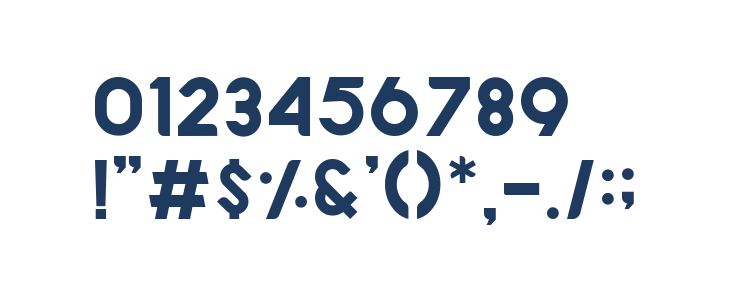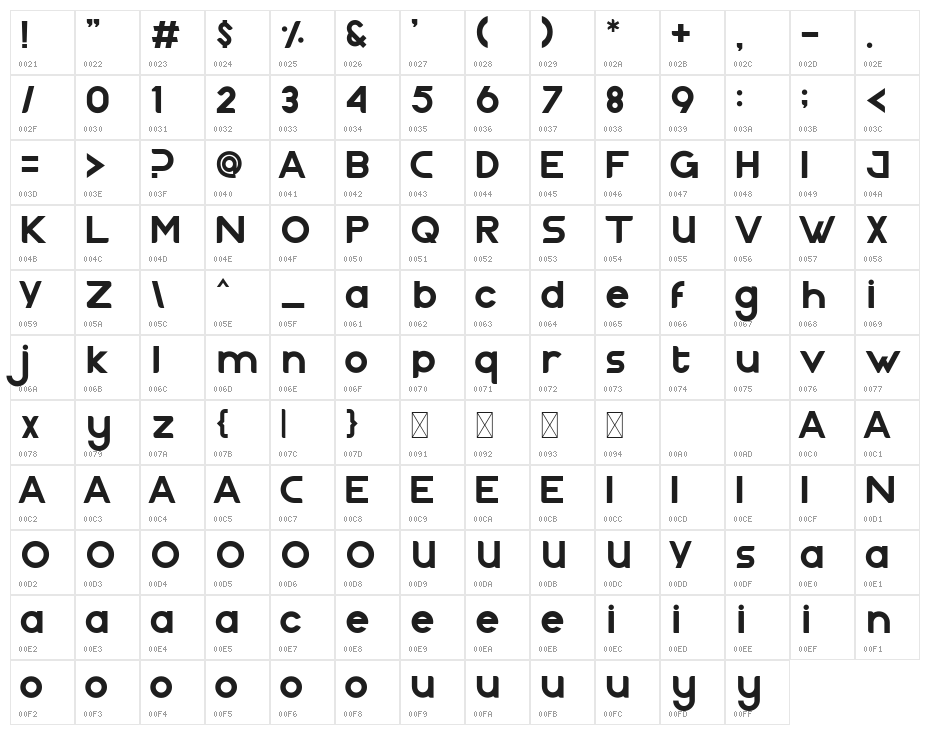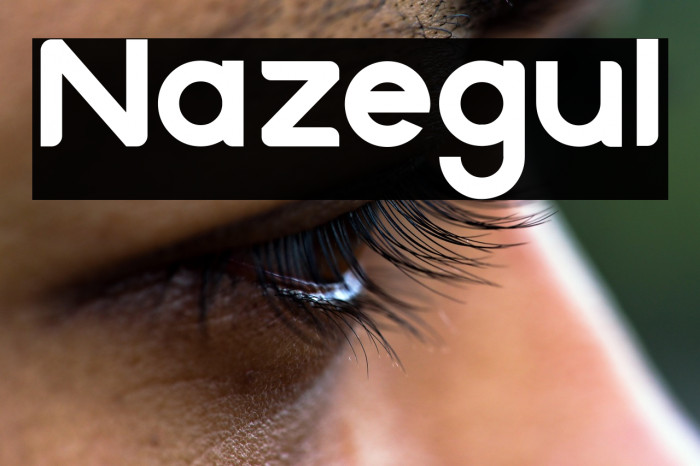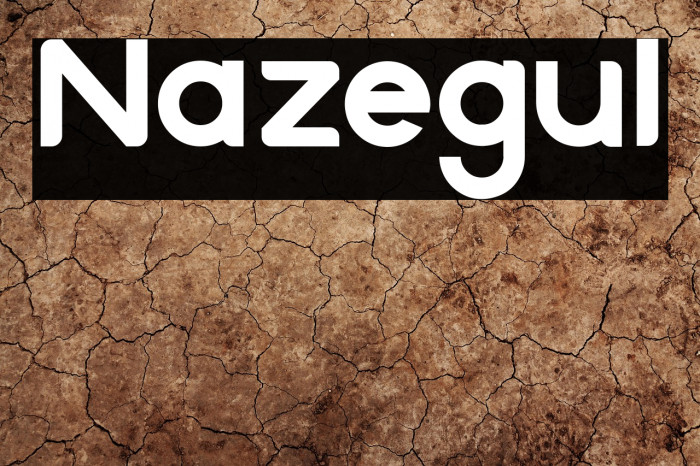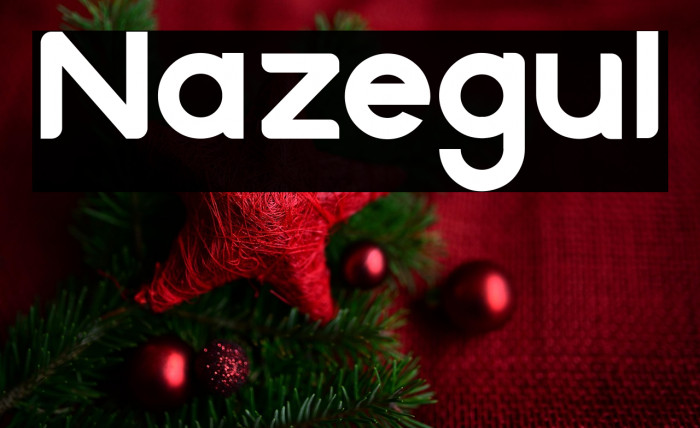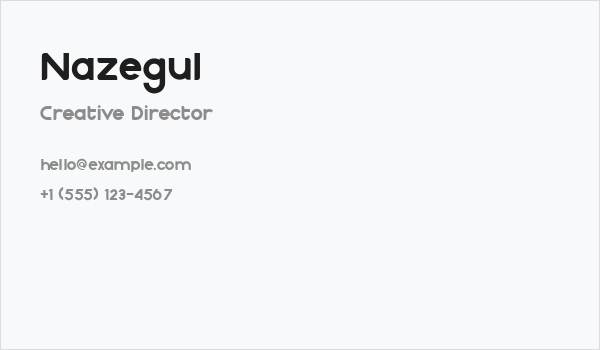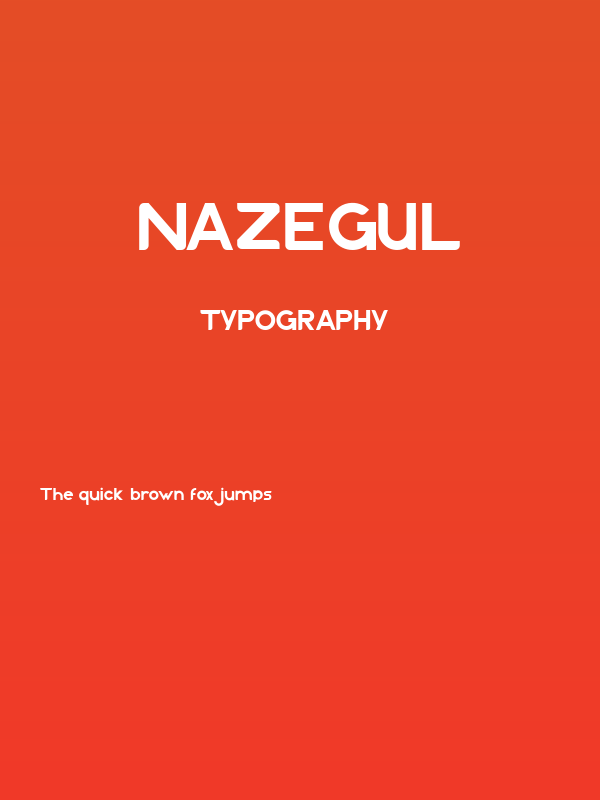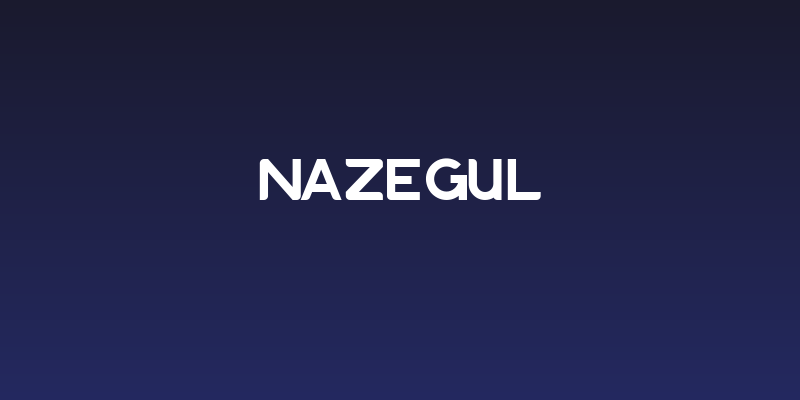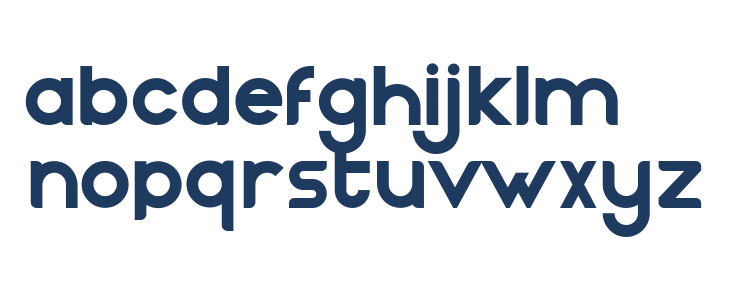
Nazegul Font
Nazegul Description
This font features a bold and modern aesthetic with a geometric design. The characters are crafted with clean lines and a uniform stroke width, giving it a sleek and contemporary look. The uppercase letters are particularly striking, with a strong presence and angular forms. The lowercase letters maintain a consistent style, offering a harmonious balance between the two cases. The numerals are clear and easy to read, while the special characters add a touch of uniqueness with their distinct shapes. Overall, this font exudes a sense of modernity and precision, making it suitable for a variety of design applications.
| Proposed Projects | Ideal for branding, advertising, digital media, and modern web design projects. |